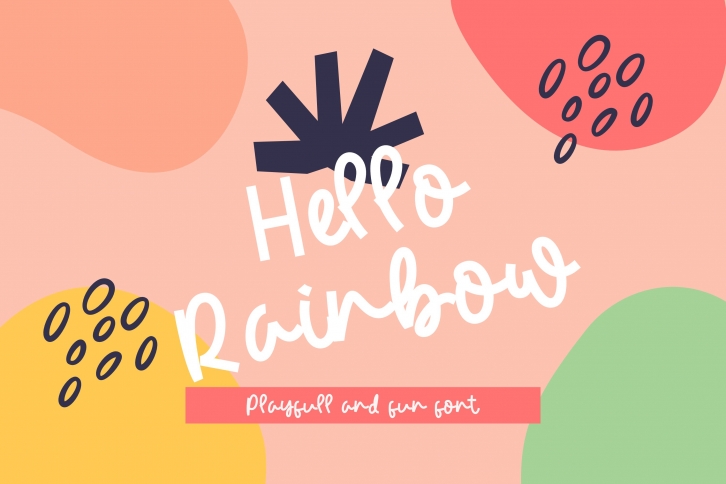
Hello Rainbow is a beautiful font that was designed by Ongtype co. It's a great choice for designers and creatives who need such a font. It was released on April 21, 2021 and the file size is 18.95 MB. Hello Rainbow may give a more youthful, expressive and casual look to your project. It is a very beautiful, refined, elegant, and high-quality font.